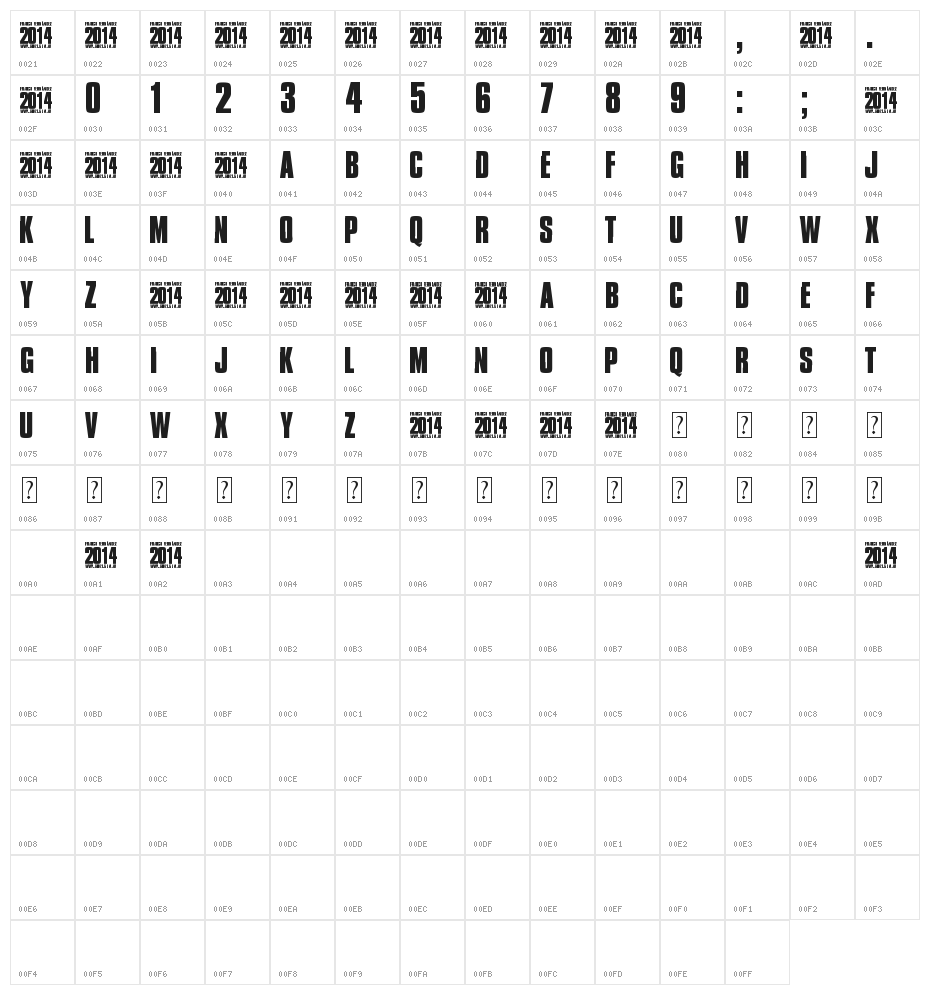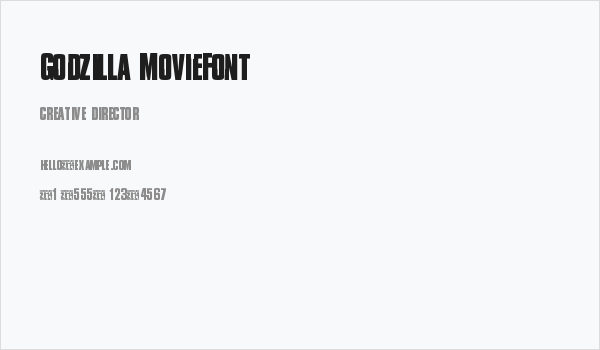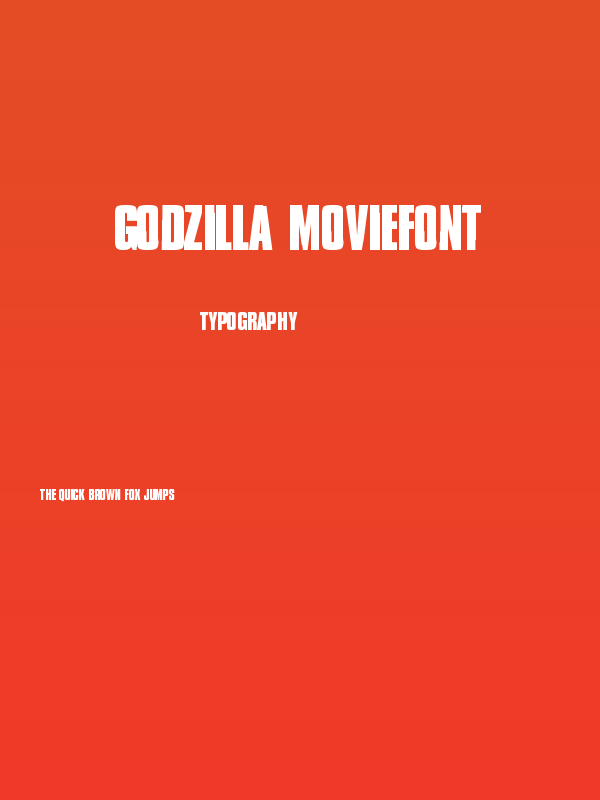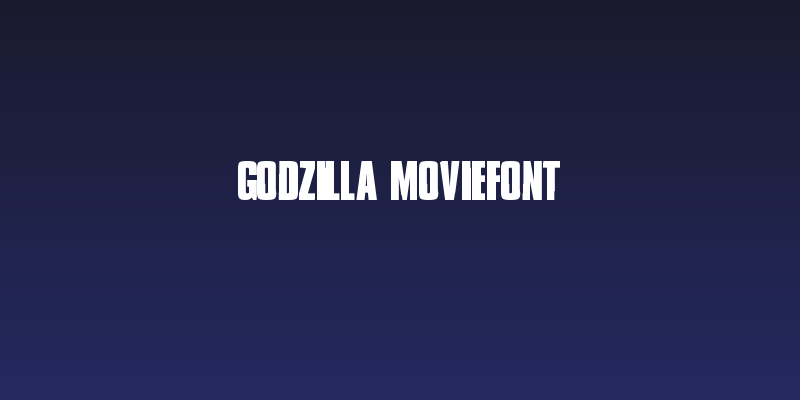
Godzilla MovieFont Font
Godzilla MovieFont Description
This font features bold, blocky letters with a strong, imposing presence. The uppercase characters are uniformly wide, with thick strokes that convey a sense of power and stability. The numbers follow the same bold style, ensuring consistency across all characters. The font's design is reminiscent of classic movie posters, making it ideal for projects that require a dramatic and impactful look. Its robust appearance is well-suited for headlines and titles, where attention-grabbing text is essential.